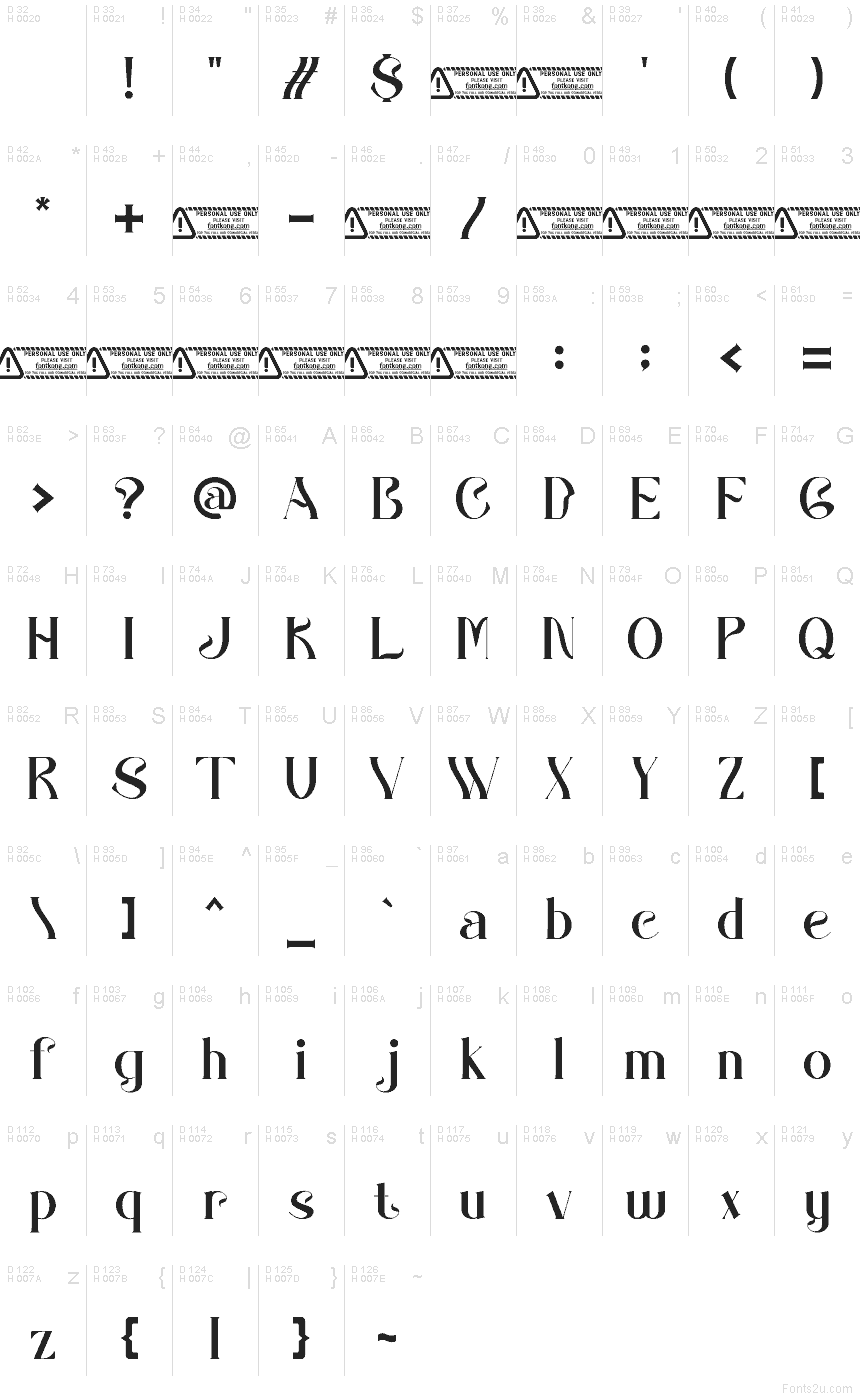
Berlin font by Kong Font captures the essence of elegance and modern sophistication. This free display font features high contrast for a striking visual impact, balancing artistic flair with a refined touch. Designed to stand out, it's perfect for making a bold statement in various creative projects.
Ideal for branding, magazine covers, social media posts, posters, wedding invitations, product packaging, and logos. Berlin font also shines in fashion illustrations, book covers, advertising materials, website headers, and art exhibitions. Let your designs speak volumes with this visually captivating typeface!